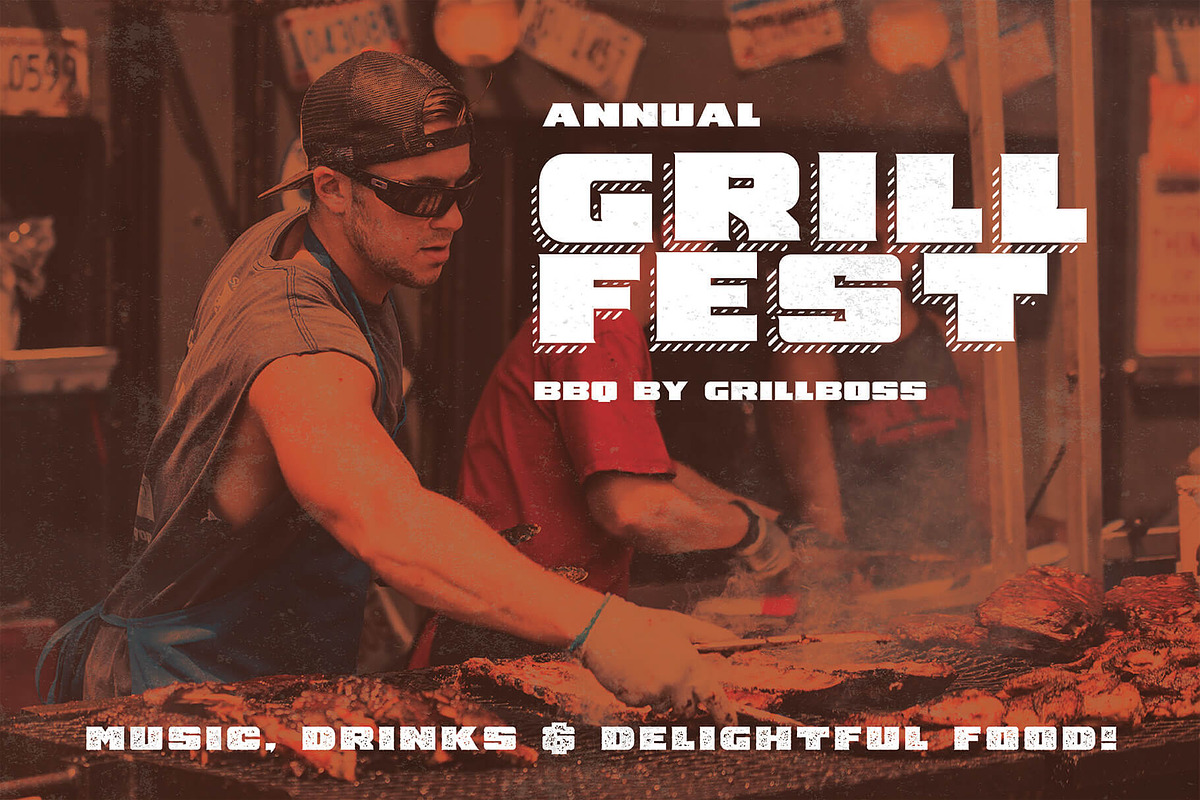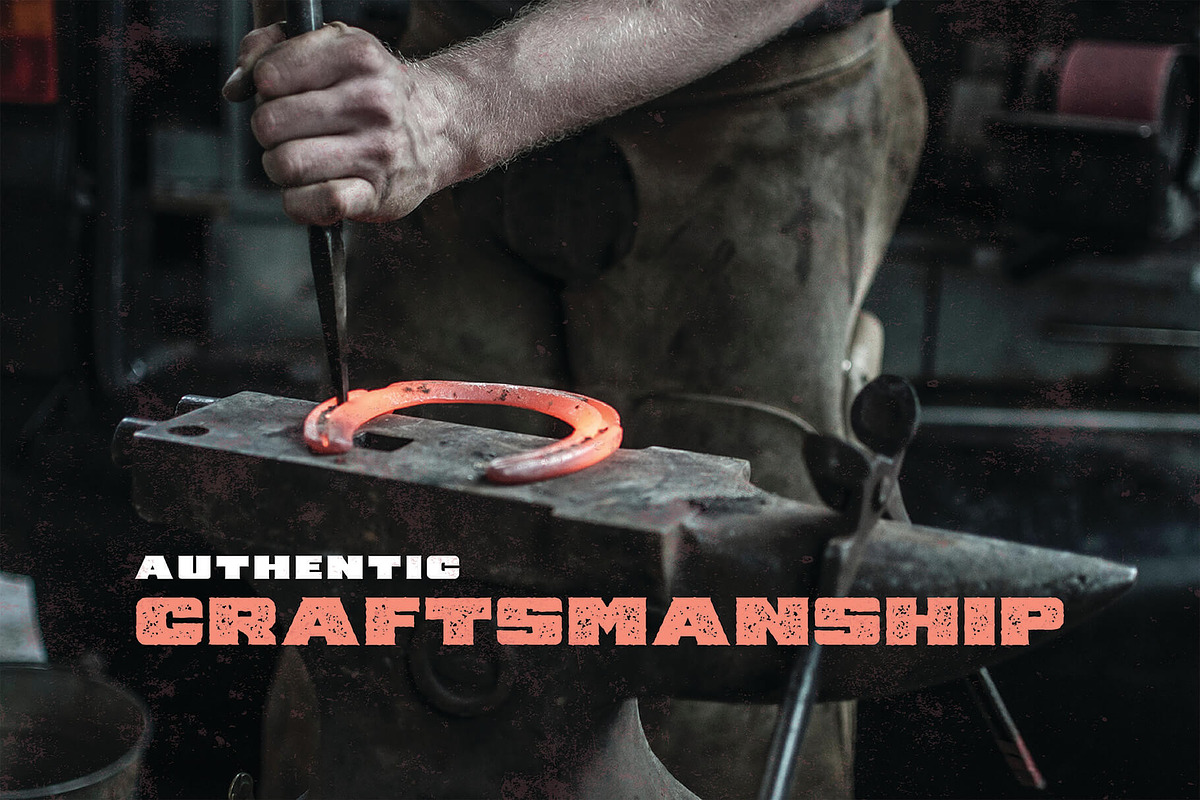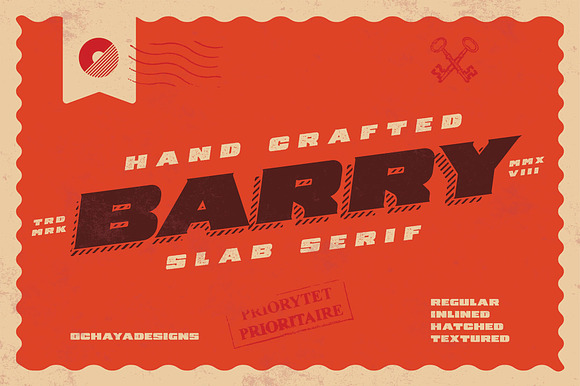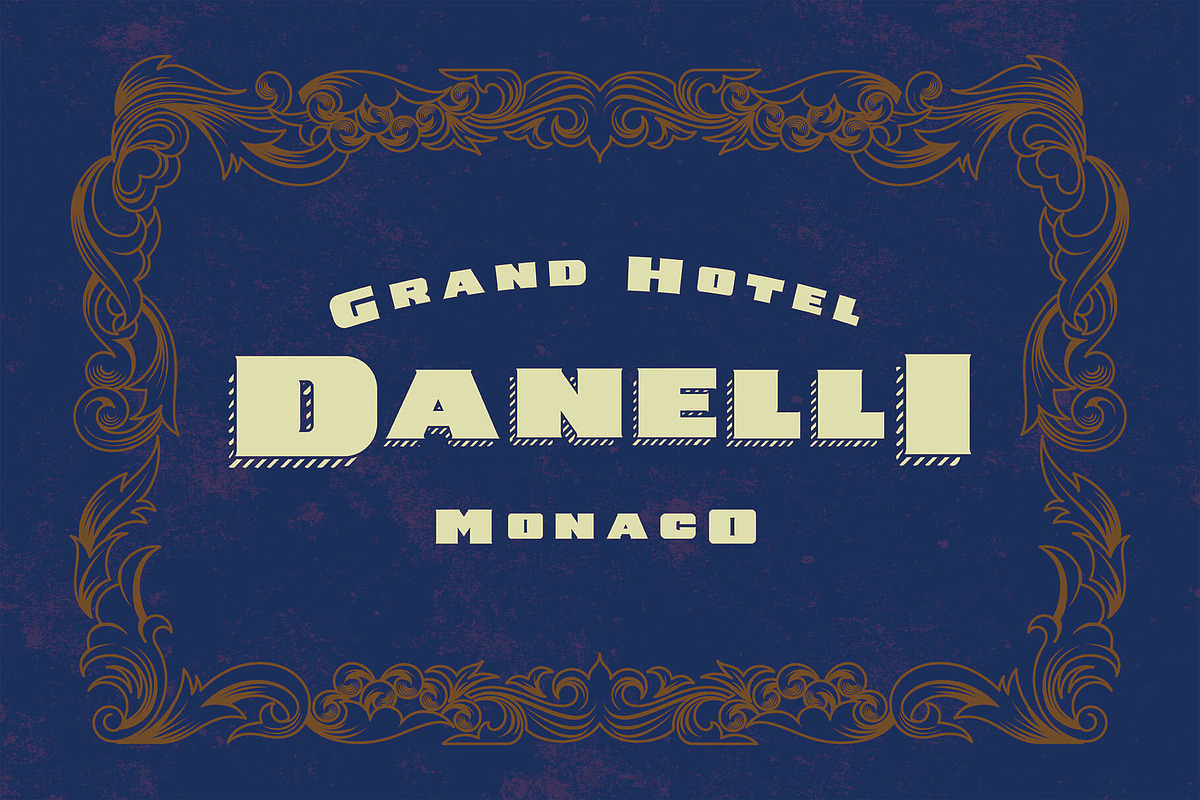
Barry | 4 Font Styles
Barry is a pretty cool character. He's often seen with four of his best buds, Regular, Textured, Hatched & Inlined. Each with their own unique styles.
When these four work together, they cause people to take notice. Sure, they may not be Thin or Italic, but they sure are Bold, and can hold their own. Certainly the type of friends you'd like to have in your corner any day.
- Barry Regular
- Barry Hatched
- Barry Inlined
- Barry Textured